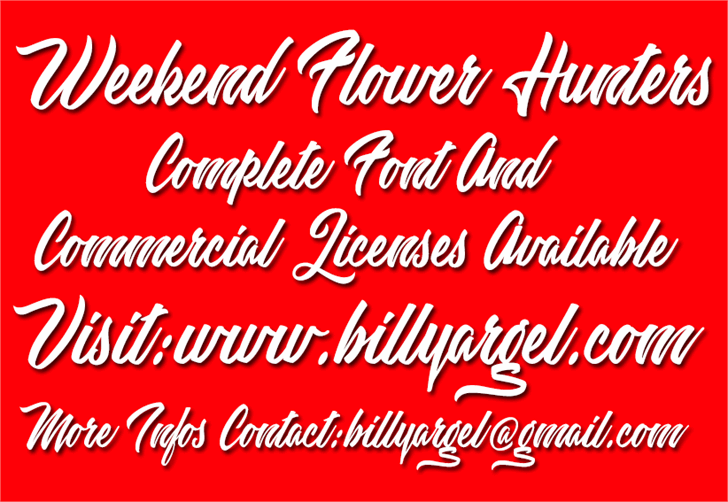
Free Weekend Flower Hunters Font
Take a look at this adorable free weekend flower hunters font. This is a downloadable font file brought to you by Font Space. Showcase your designs like a graphic design pro by adding a new touch with this beautiful font.